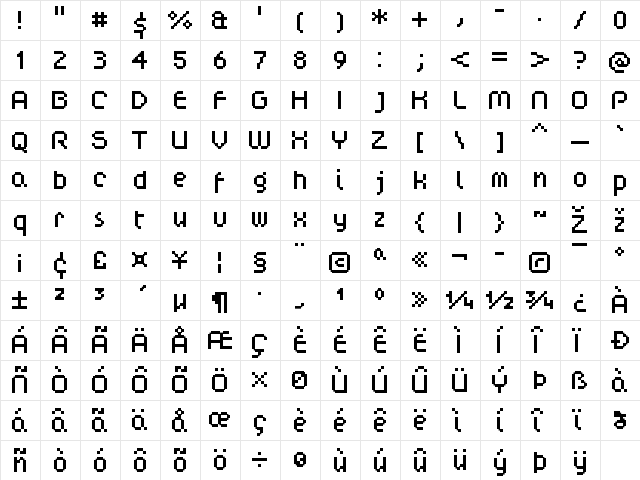
FFF Regency Regular
| Foundry | Fonts For Flash |
| Designer | Fonts For Flash |
Design Context for FFF Regency Typeface
FFF Regency is a composed and adaptable typeface that performs quietly and consistently across a wide range of design contexts.